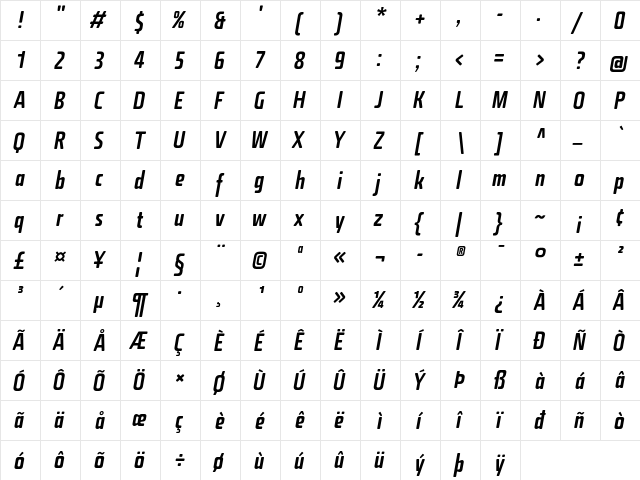
Fishmonger ECS Italic
Design Context for Fishmonger ECS Typeface
Fishmonger ECS is a composed and adaptable typeface that performs quietly and consistently across a wide range of design contexts. Its italic angle brings a sense of urgency and motion to the letterforms.
Pro Tip: Try Fishmonger ECS for annotation and caption copy alongside an upright companion — the contrast in angle creates a dynamic but ordered typographic system.